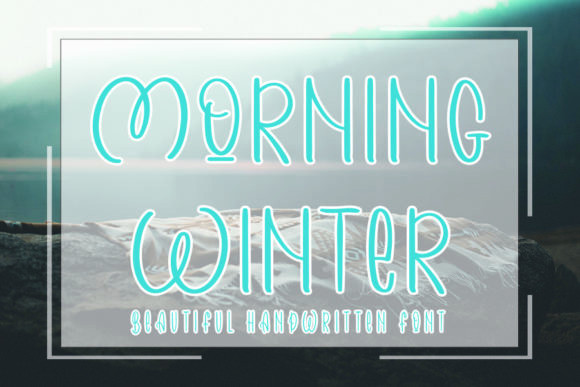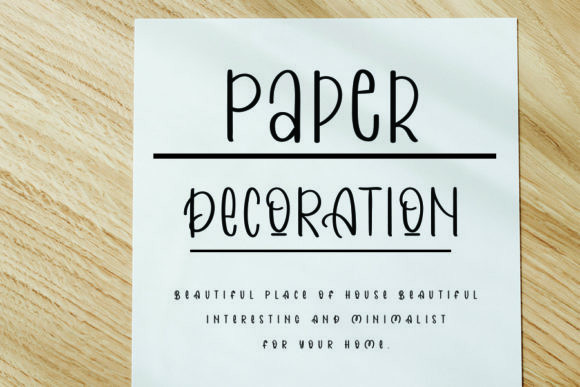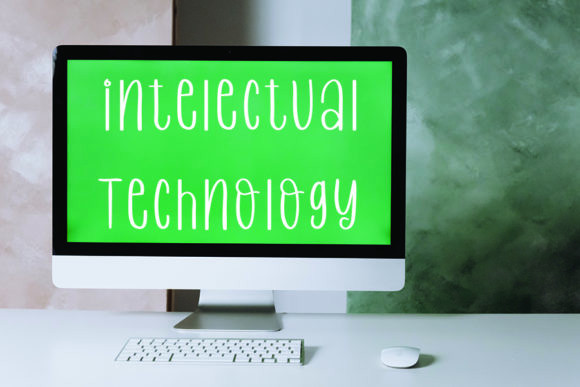
Morning Winter Font
Morning Winter is a narrow and playful lined handwritten font with modern details. It can be used for various purposes such as logos, headings, t-shirts, letterhead, signage, labels, news, posters, badges and so much more.